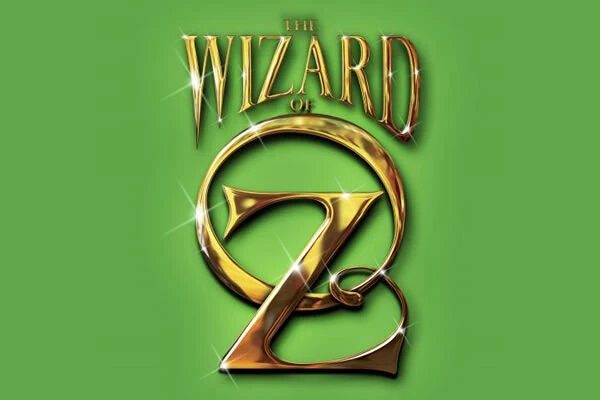
The font that most closely resembles the text used in the Wizard Of Oz movie, is a typeface by the name of Oz's Wizard. This is a hand-drawn font by the well known and respected font author Mario Arturo and is based on the 1900 version of the movie by L. Frank Baum. The download package includes x3 variations that you can play around with and experiment with to find the perfect fit for your graphic design project.
In a nice touch to the original movie, these three font variations (all in TTF font format) are named as follows: Cowardly Lion, Scarecrow, and Tin Woodman.